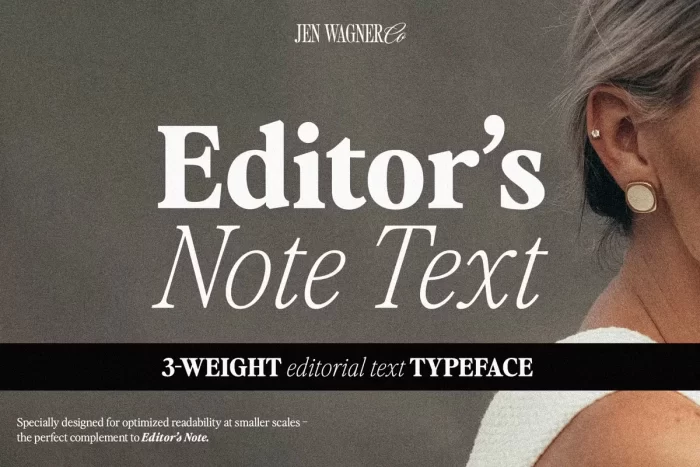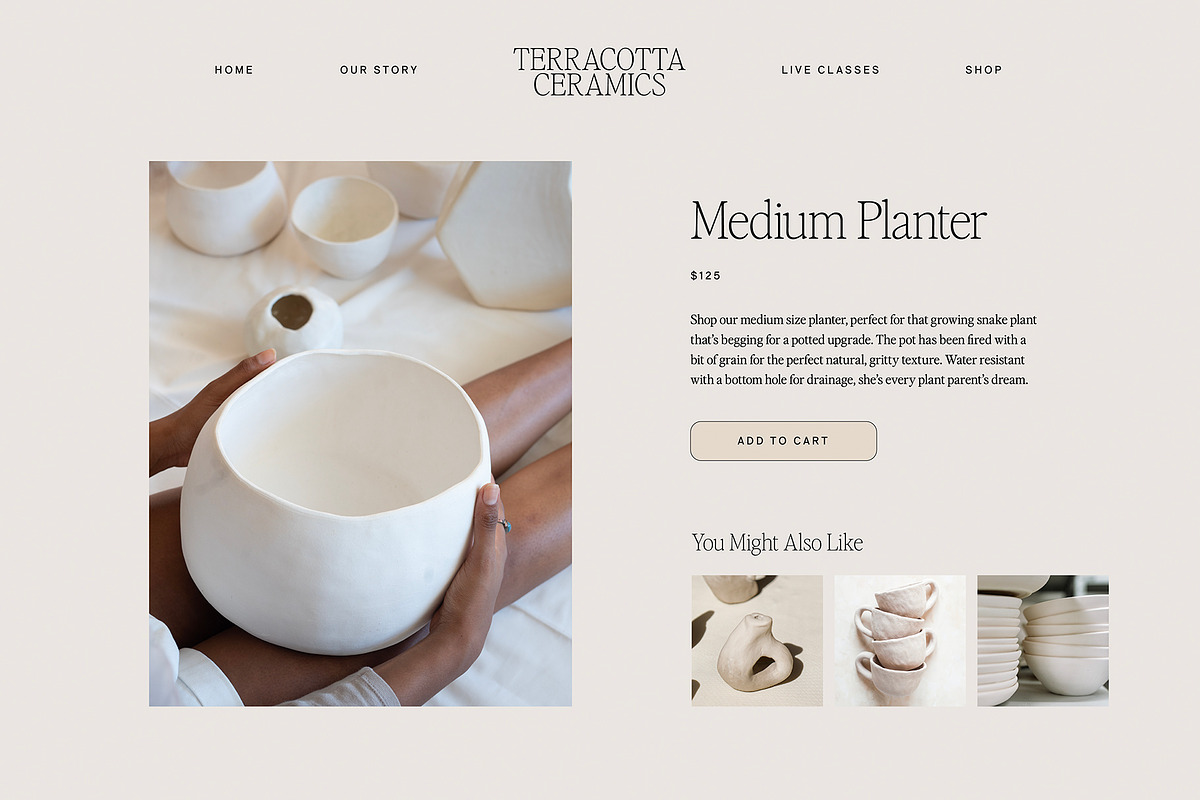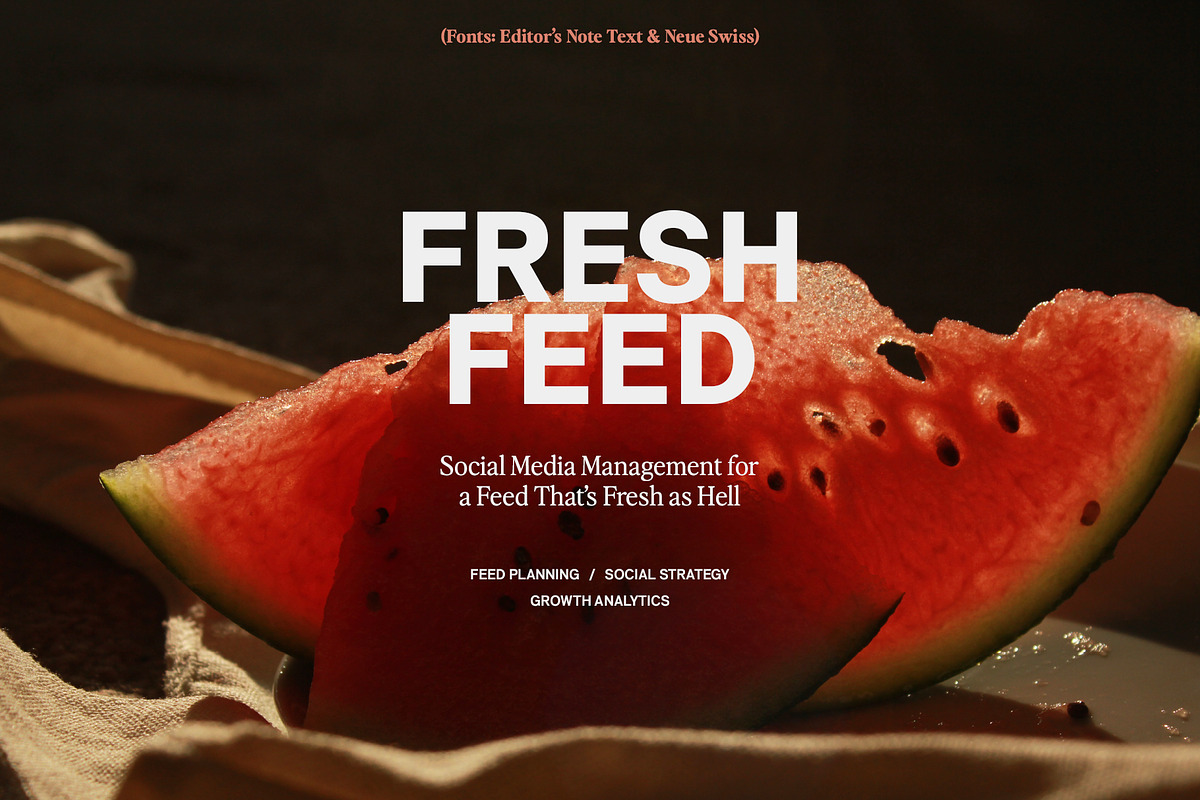
Introducing Editor’s Note Text, a text-friendly three-weight typeface designed specifically to accompany Editor’s Note. Editor’s Note Text is a 3-weight, text-friendly companion to Editor’s Note that you can use for all your body copy.
Using higher contrast display fonts like Editor’s Note for paragraphs of text is a bit of a design faux pas. It can get really tricky and tiring to read, and the contrast makes the thin lines fade into the background.
That’s where Editor’s Note Text comes in! Designed specifically for text, Editor’s Note Text works better at small scales and is a lot easier to read. So you get the same vibe as Editor’s Note with the readability of a text typeface.